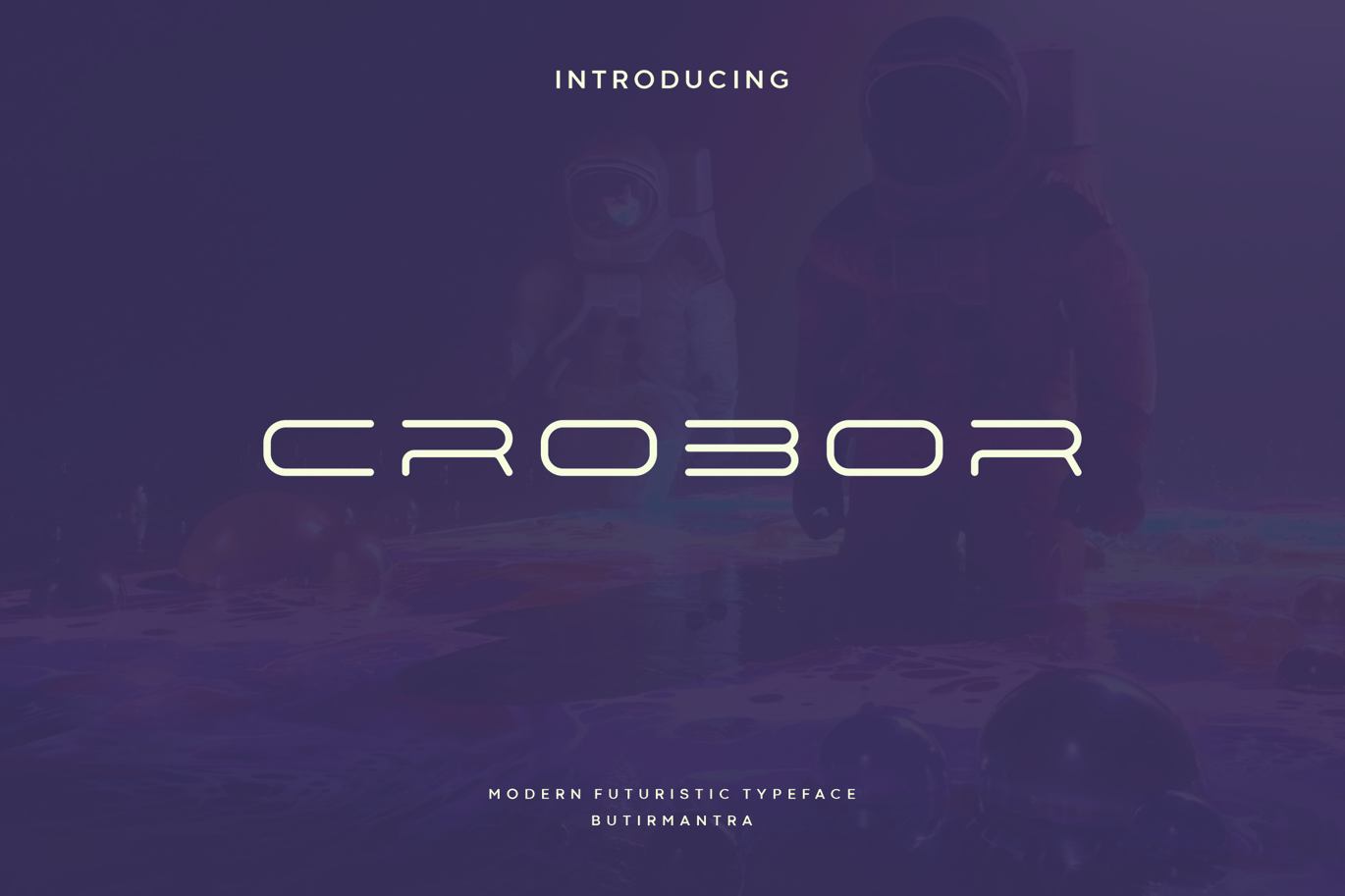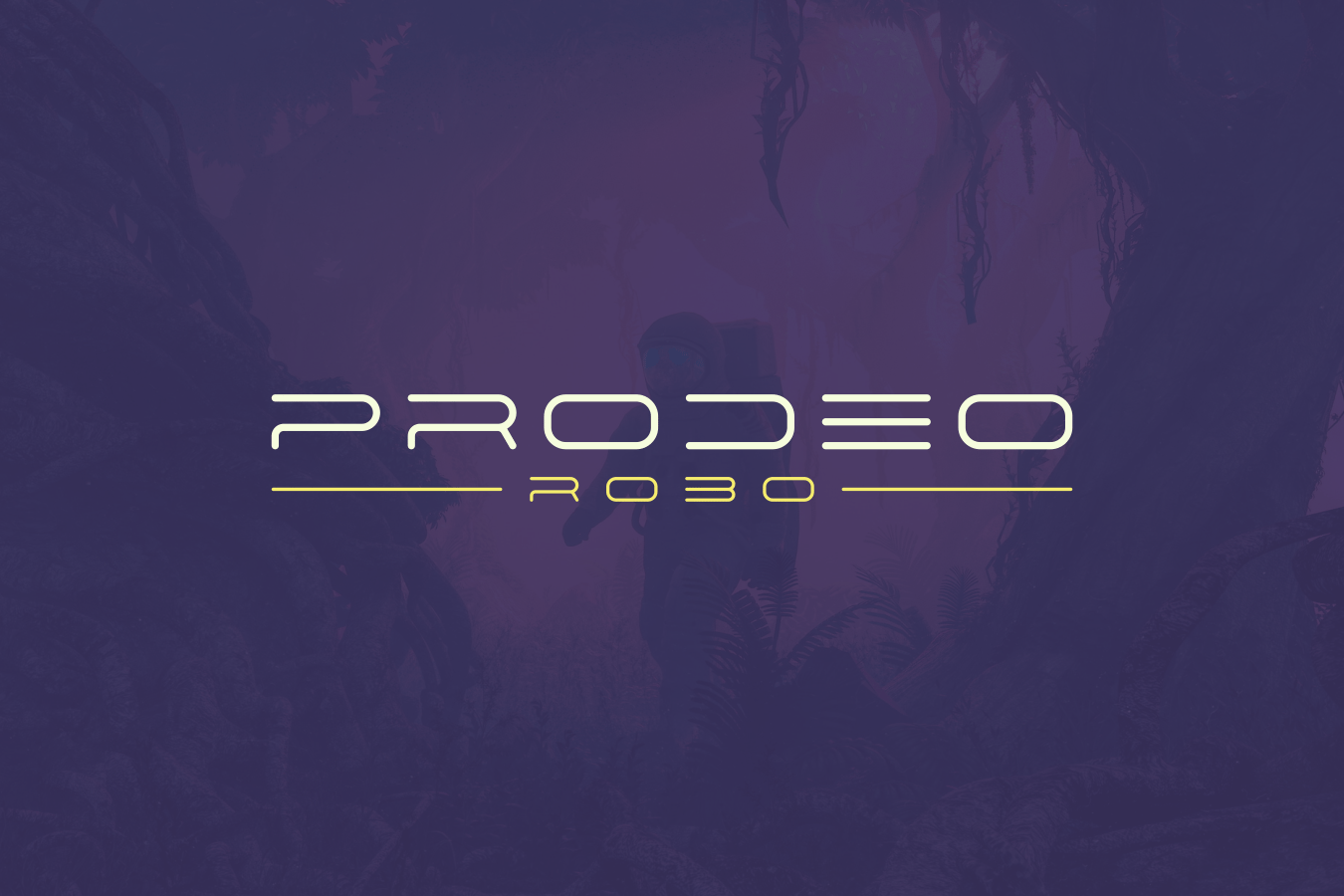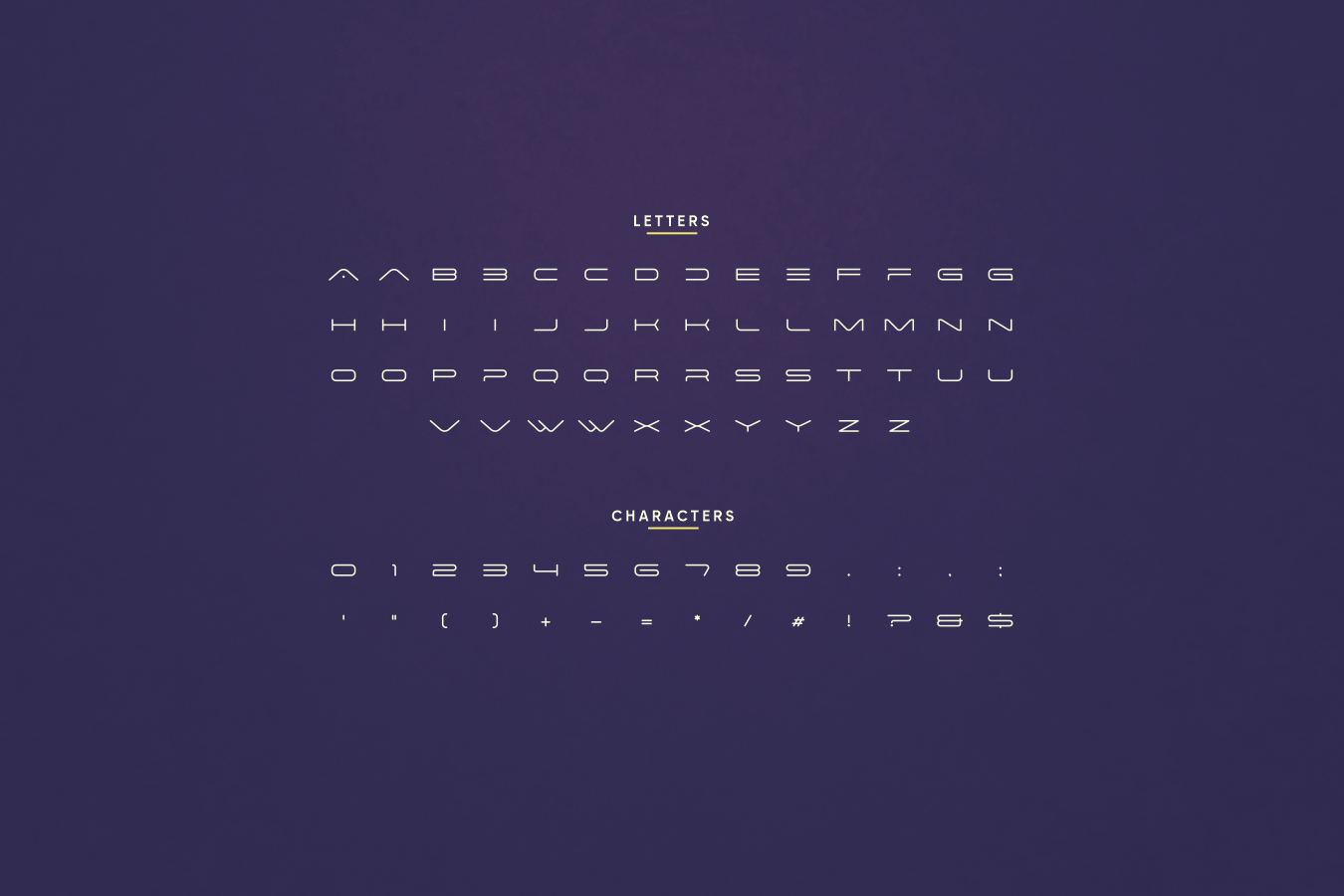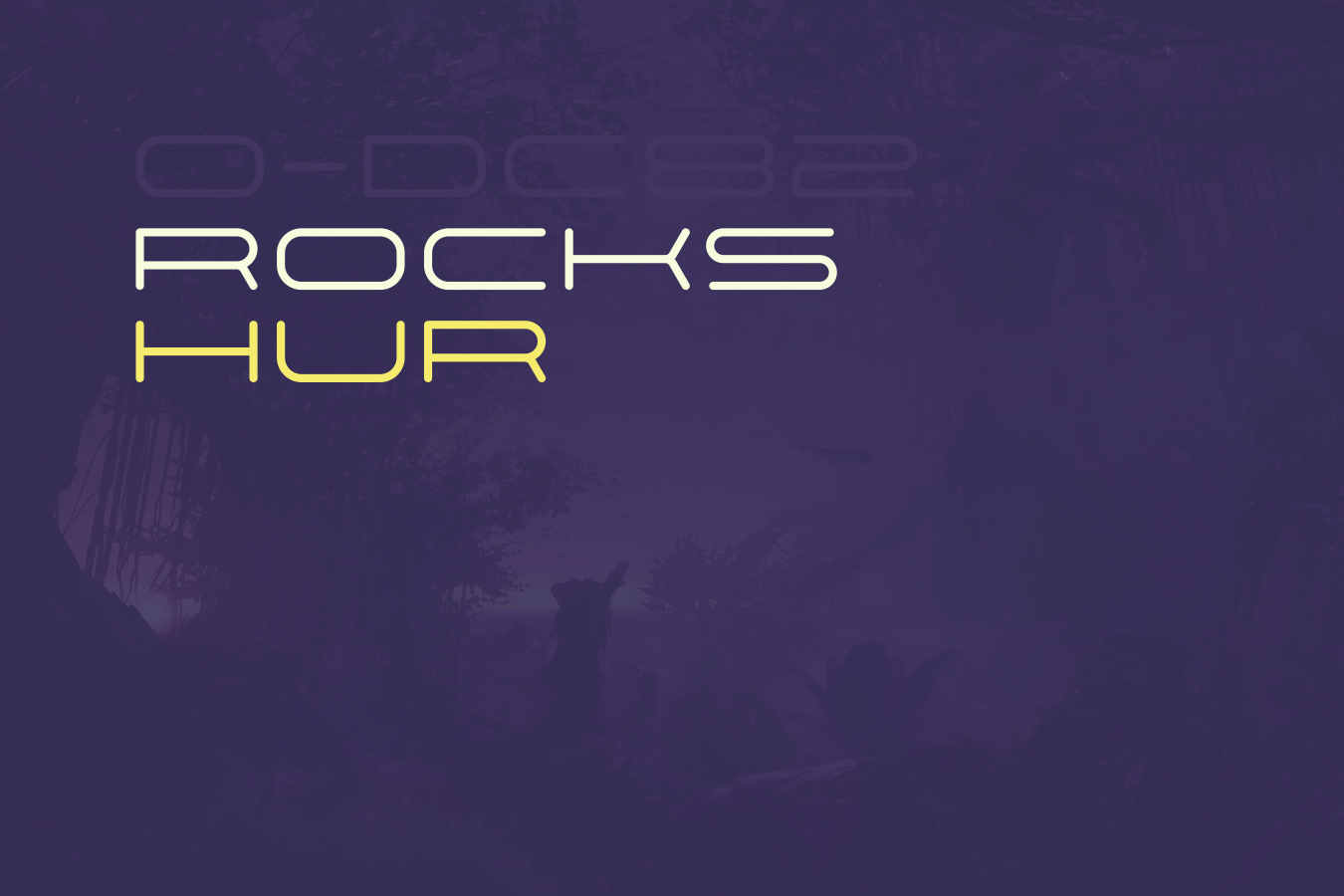
Crobor – Futuristic Font
Crobor is a sophisticated and elegant font, it comes with all caps and has a unique shape, minimalistic and elegant which makes it look very sophisticated. Crobor is particularly suited for sci-fi designs, logos, headlines, and artwork that need a futuristic touch. Grab and use this font for a variety of modern designs, and let the whole world get a glimpse of what the future holds.